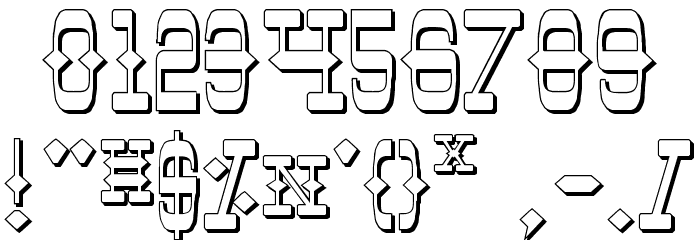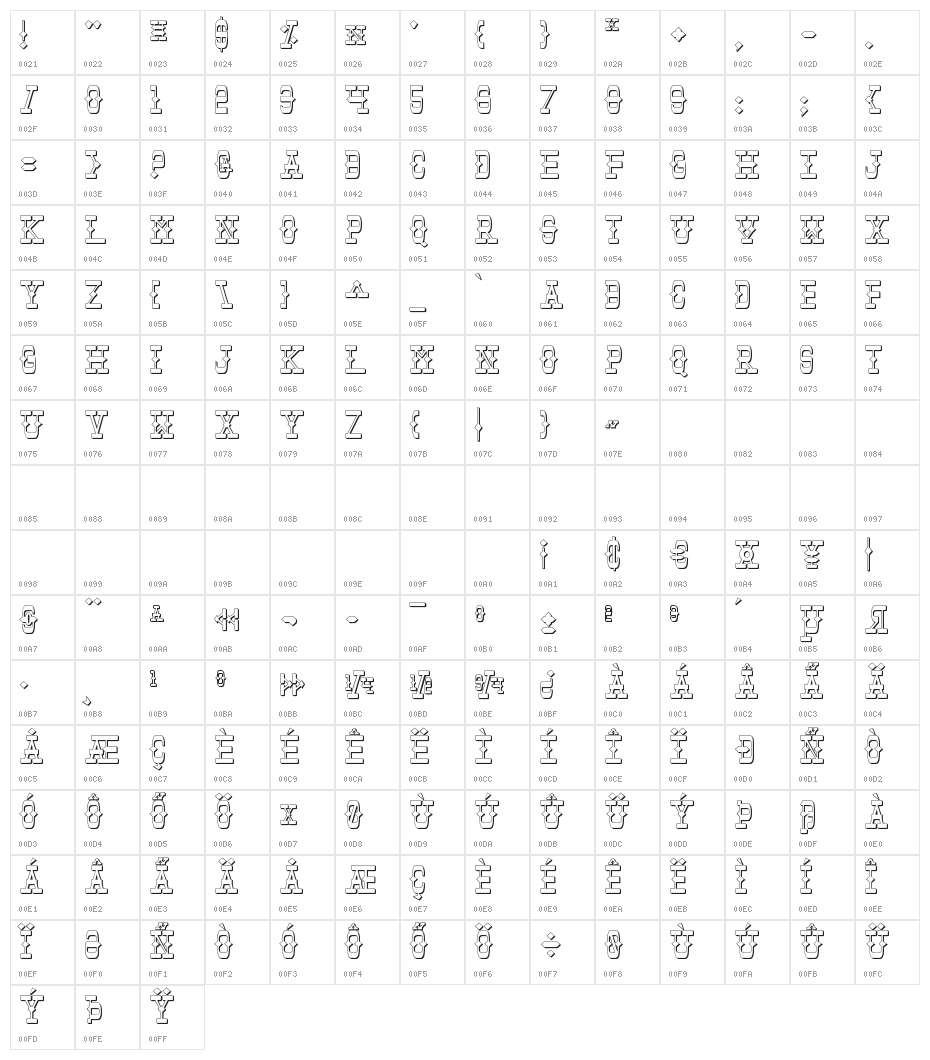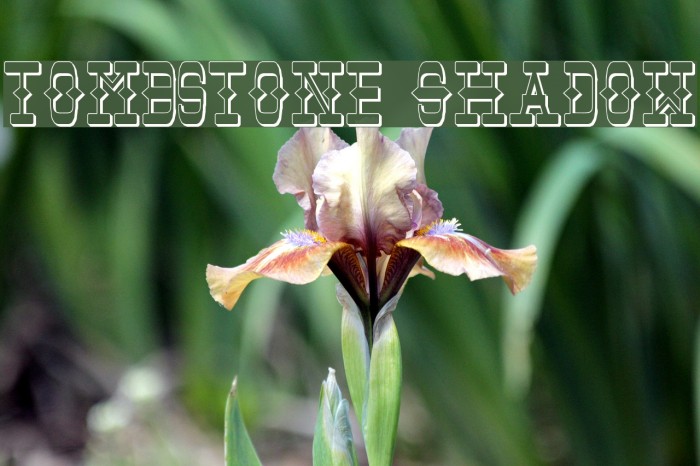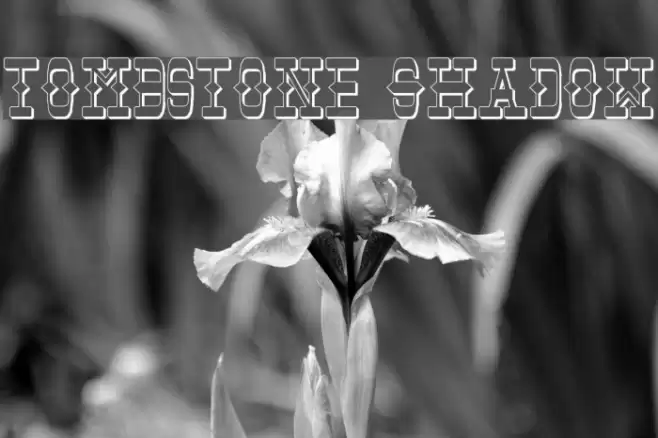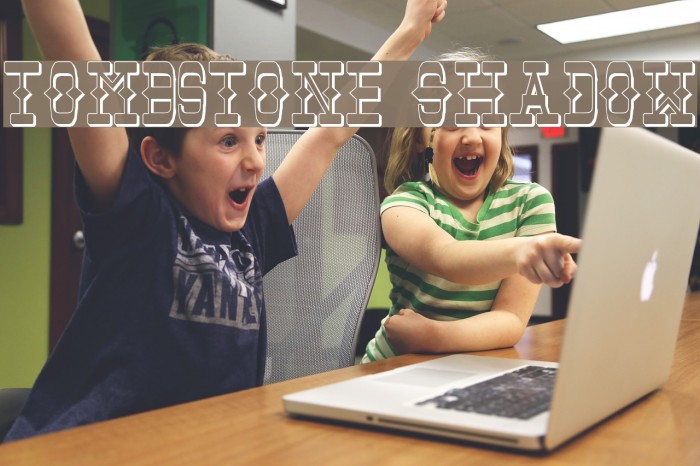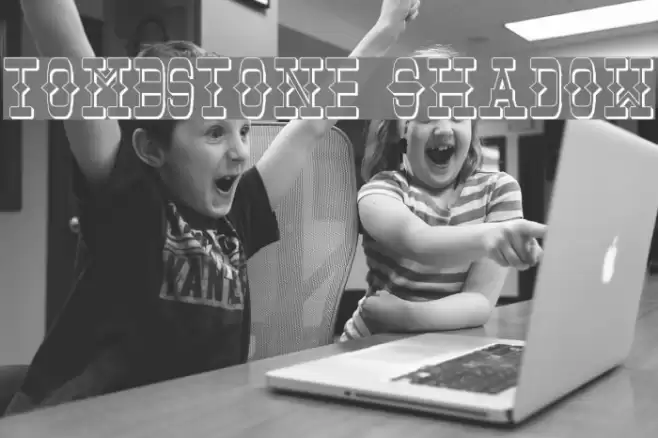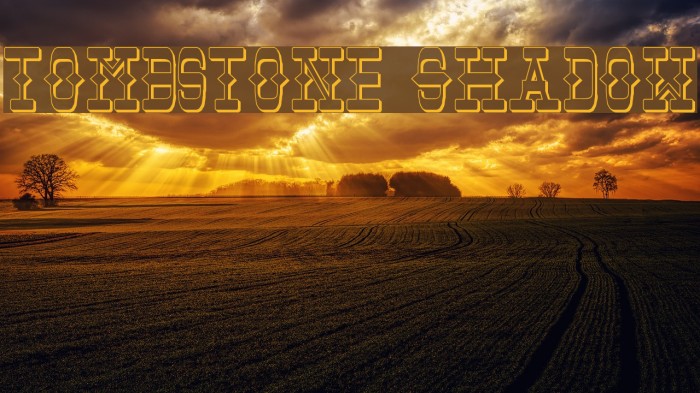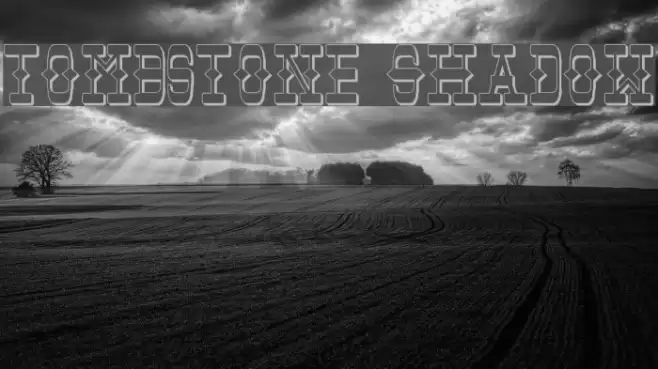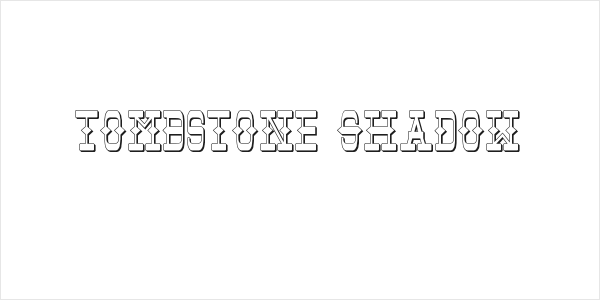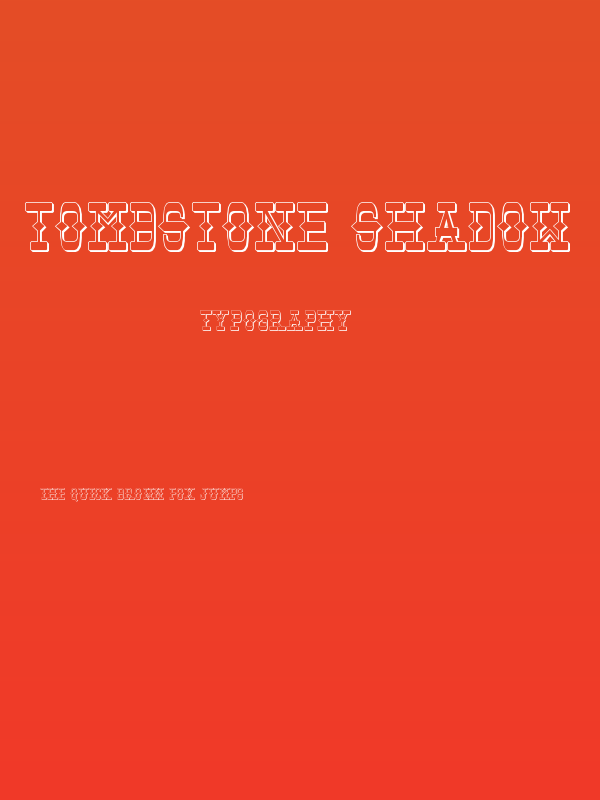
Tombstone Shadow Font
Tombstone Shadow Description
This font features a bold, shadowed outline style that gives each character a three-dimensional appearance. The letters are uppercase and have a strong, geometric structure with sharp angles and clean lines. The shadow effect adds depth, making it stand out prominently. The font is highly decorative, suitable for eye-catching designs. It includes a full set of uppercase letters, numbers, and a variety of special characters, each maintaining the same shadowed style. The overall look is reminiscent of vintage or western themes, making it ideal for projects that require a bold, impactful typeface.
| Proposed Projects | Ideal for posters, signage, branding, and any design requiring a bold, vintage aesthetic. |